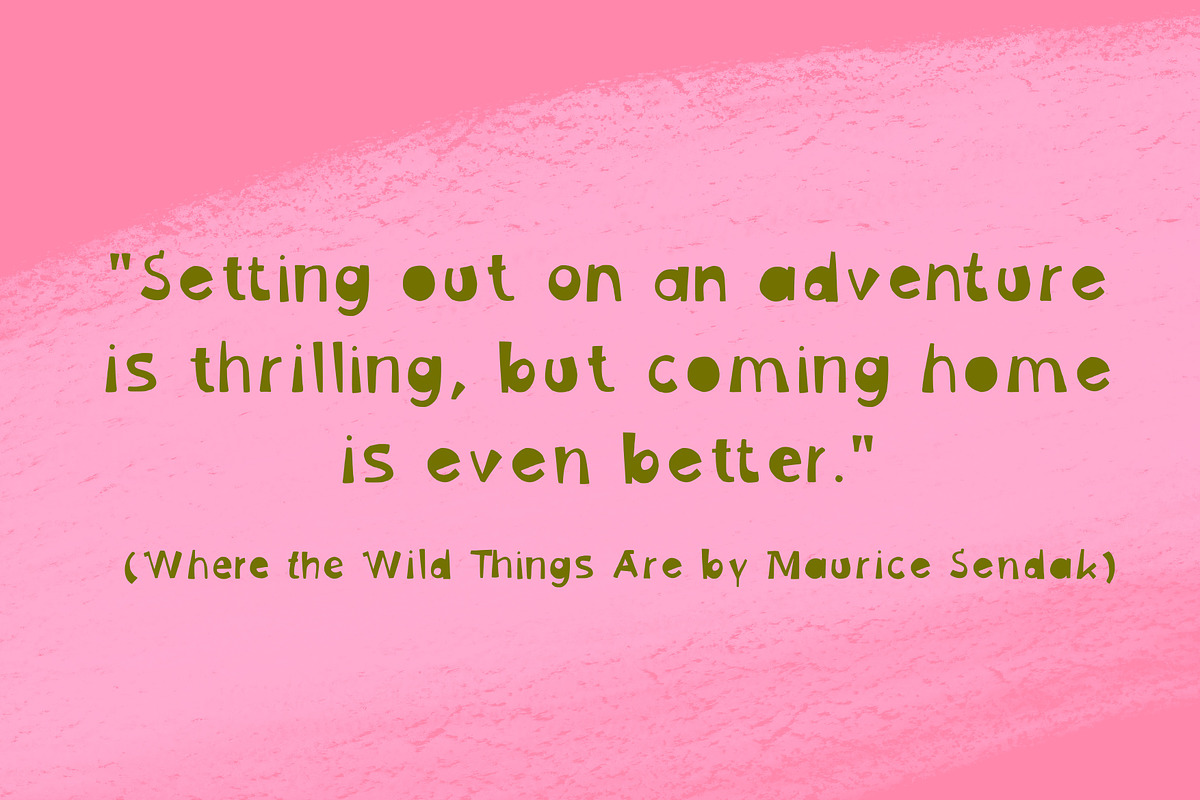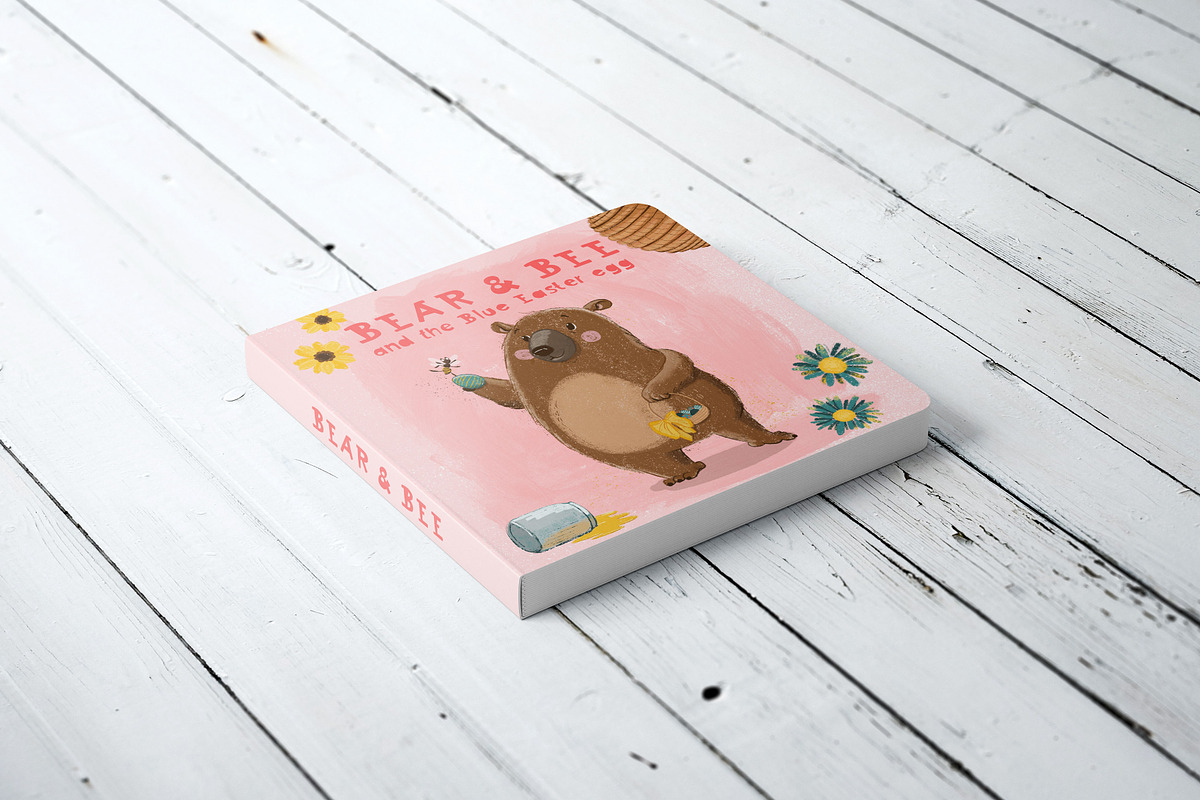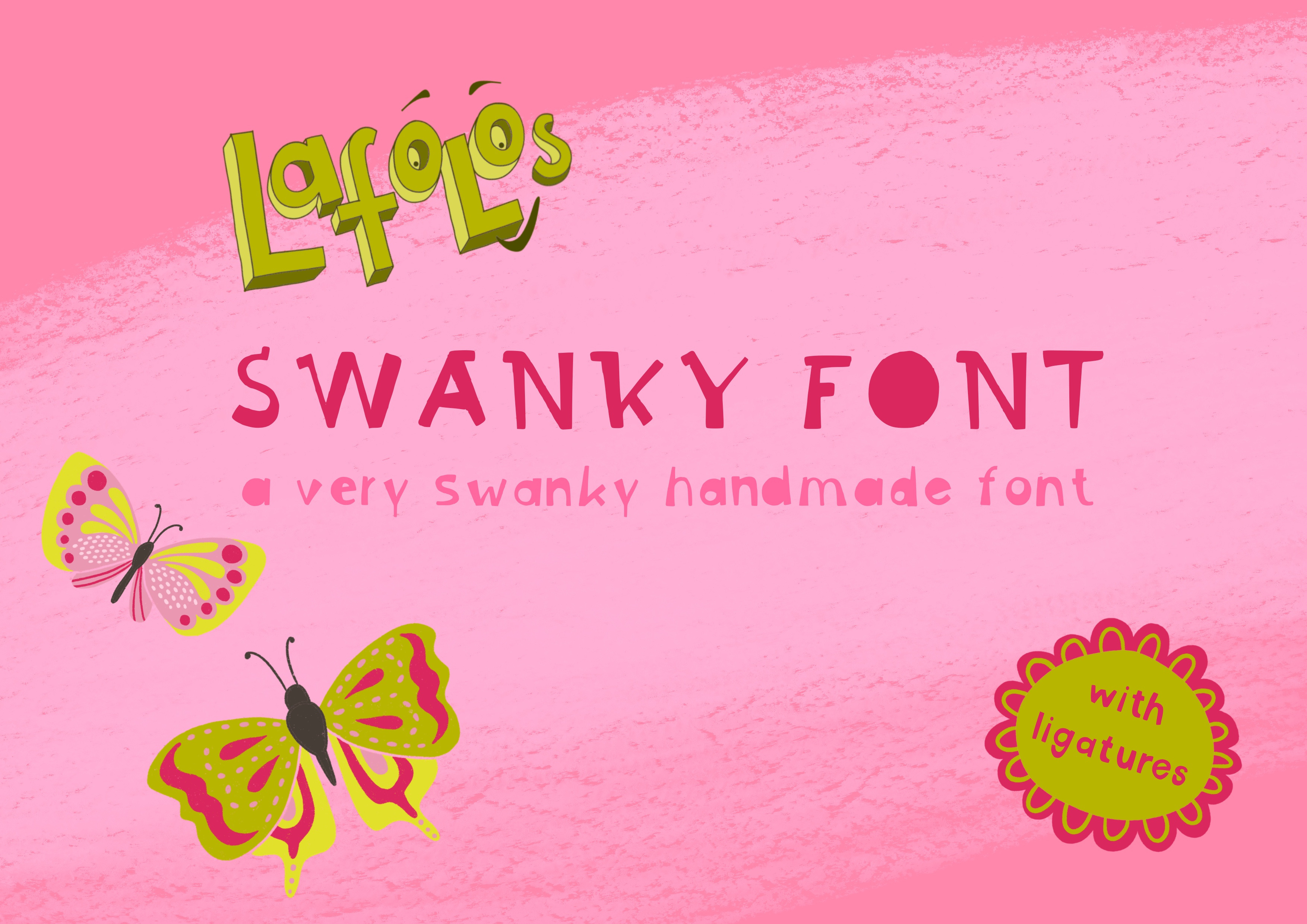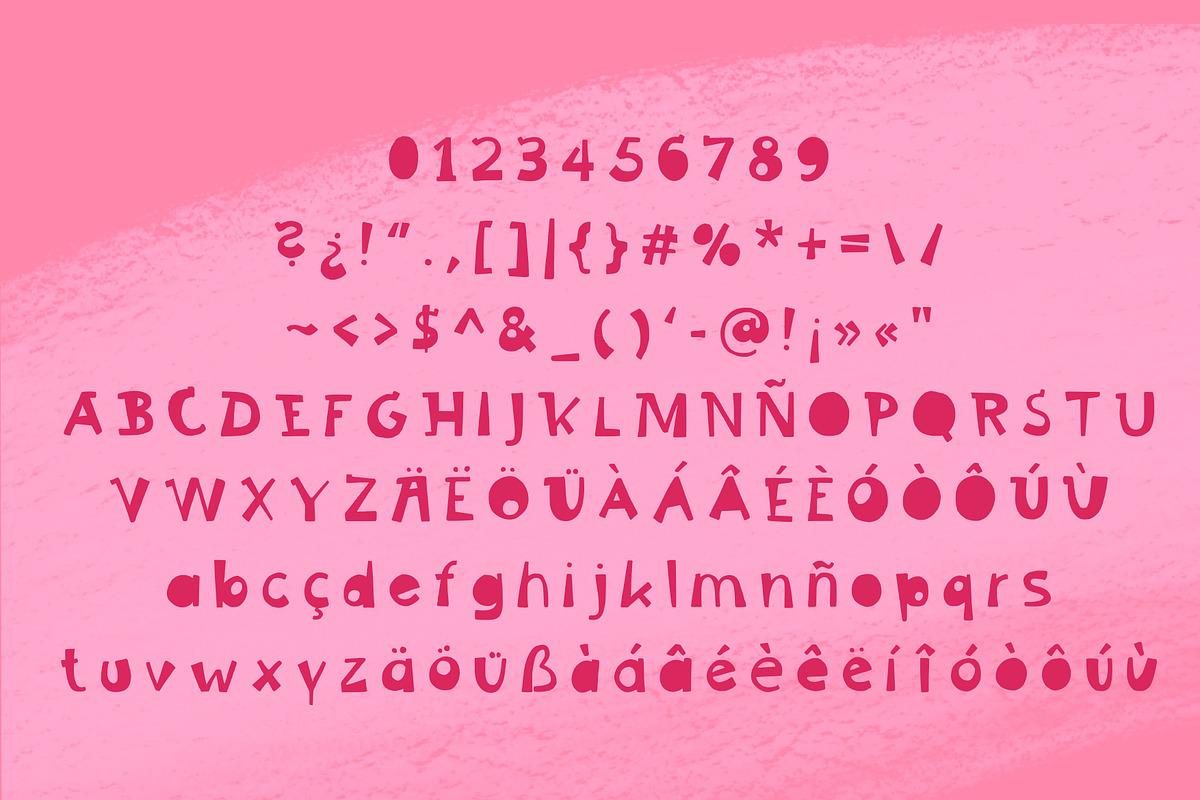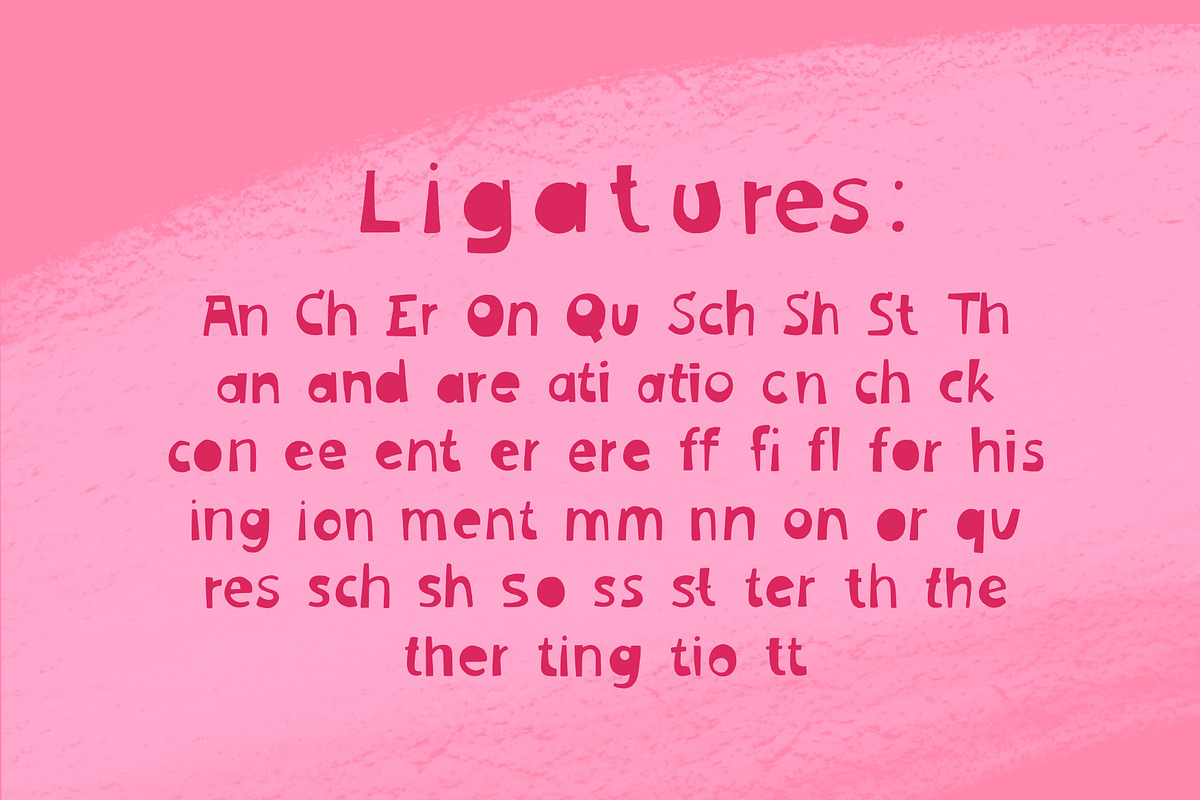
LAFOLOs Swanky Font
LAFOLOs Swanky Font - a quirky hand drawn font for headlines, package, branding and more.
Use the font to create individual designs for headlines in chapter books, greeting cards, notebooks, stickers and so much more.